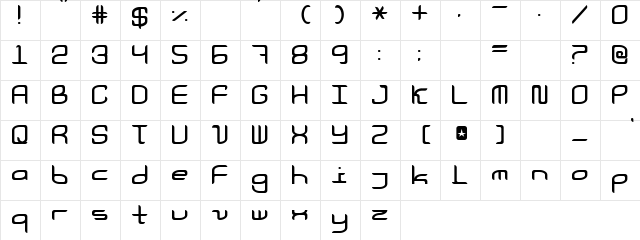
Leo X True Regular
Design Context for Leo X True Typeface
Leo X True takes a measured approach to typography — its balanced proportions and neutral character make it a reliable workhorse for both digital and print work.